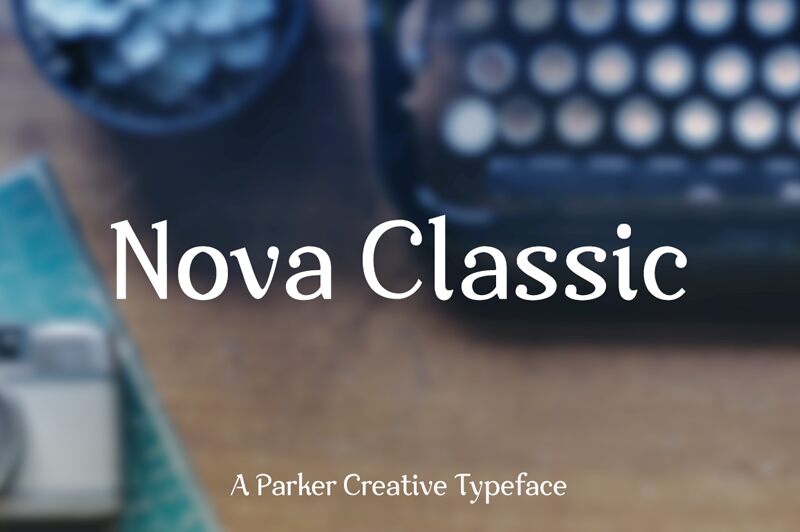
Nova Classic is a timeless serif font that exudes sophistication and elegance. Its refined letterforms and well-balanced proportions lend a sense of refinement and authority to any design. The subtle yet distinctive serifs and the graceful, flowing strokes create a harmonious and visually appealing aesthetic. This font's versatility makes it an excellent choice for a wide range of applications, from high-end editorial layouts to impactful branding and signage.
Its classic charm and versatility make Nova Classic a versatile font that can elevate the aesthetic of various design projects. The font's balanced proportions and refined details lend a touch of sophistication that can enhance the visual impact of headlines, body copy, and more.